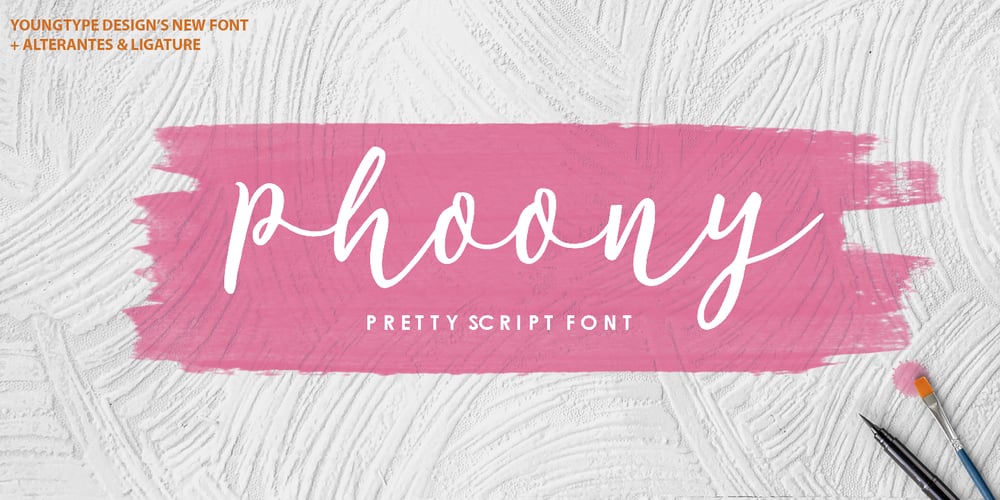
Phoony Script Font Family was designed by Naufal Paramata and published by Youngtype. Phoony Script contains 1 styles and family package options. Phoony script is a hand brushed font with and irregular baseline. Contains a complete set of lowercase, uppercase, alternates, ligatures, punctuation, numbers, and multilingual support. This font ideal for use as bold lettering style in blog headers, posters, wedding elements, t-shirt, apparel, cover books, business cards, greeting cards, branding, merchandise, invitations and handmade quotes and more. How to access all alternative characters, using Windows Character Map with Photoshop: https://www.youtube.com/watch?v=Go9vacoYmBw How to access all alternative characters using Adobe Illustrator: https://www.youtube.com/watch?v=XzwjMkbB-wQ